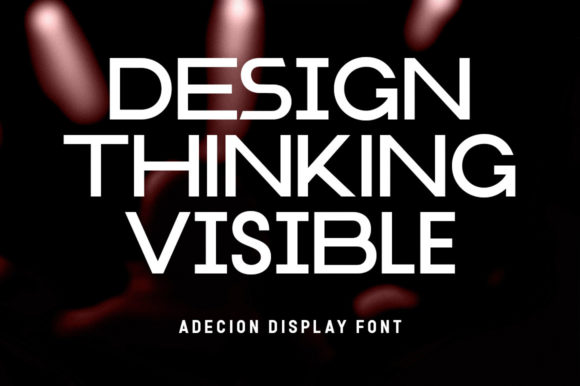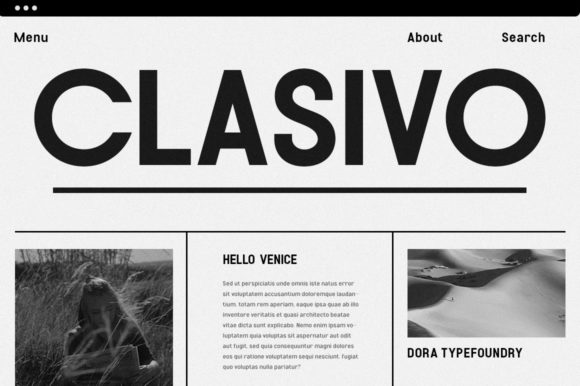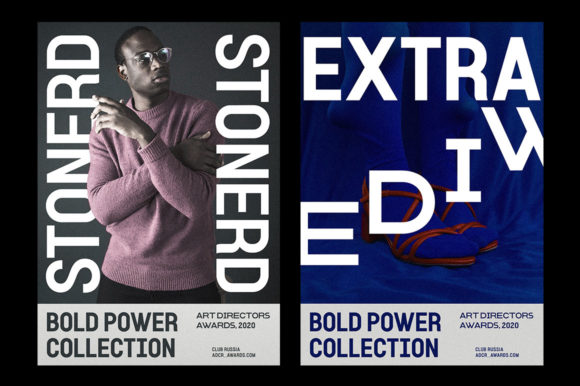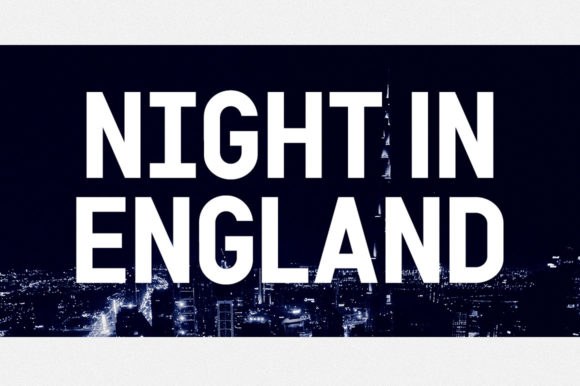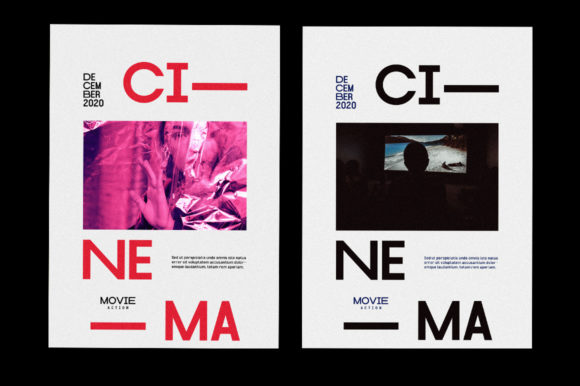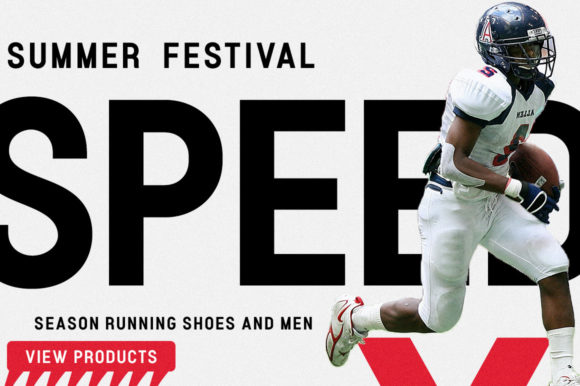
Adecion Font: Elevate Your Designs with a Bold and Simple Display Font
Are you tired of using the same old fonts in your designs? Do you want to make your creative ideas stand out from the crowd? Look no further than Adecion Font, a bold and simple display font that’s perfect for designers and crafters alike. In this article, we’ll take a closer look at Adecion Font, its features, and how it can elevate your designs to the next level.
What is Adecion Font?
Adecion Font is a modern display font that’s designed to make a statement. Its bold and simple design makes it perfect for headlines, titles, and other design elements where you want to grab attention. The font is clean, elegant, and highly legible, making it suitable for a wide range of design projects, from branding and advertising to packaging and digital media.
Key Features of Adecion Font
So, what sets Adecion Font apart from other fonts? Here are some of its key features:
- Bold and Simple Design: Adecion Font has a bold and simple design that’s perfect for making a statement.
- PUA Encoded: Adecion Font is PUA (Private Use Area) encoded, which means you can access all of the glyphs and swashes with ease.
- Highly Legible: The font is highly legible, even at small sizes, making it perfect for a wide range of design projects.
- Clean and Elegant: Adecion Font has a clean and elegant design that’s perfect for designers and crafters who want to create professional-looking designs.
Benefits of Using Adecion Font
So, why should you use Adecion Font in your designs? Here are some of the benefits of using this font:
- Make Your Designs Stand Out: Adecion Font is a bold and attention-grabbing font that’s perfect for making your designs stand out from the crowd.
- Easy to Use: The font is PUA encoded, which means you can access all of the glyphs and swashes with ease, making it easy to use in your designs.
- Versatile: Adecion Font is a versatile font that can be used in a wide range of design projects, from branding and advertising to packaging and digital media.
- Professional-Looking Designs: Adecion Font has a clean and elegant design that’s perfect for creating professional-looking designs that will impress your clients or audience.
How to Use Adecion Font in Your Designs
Using Adecion Font in your designs is easy. Here are some tips to get you started:
- Use it as a Headline Font: Adecion Font is perfect for use as a headline font, where you want to grab attention and make a statement.
- Pair it with Other Fonts: Adecion Font can be paired with other fonts to create a unique and interesting design.
- Experiment with Different Sizes: Adecion Font is highly legible, even at small sizes, so don’t be afraid to experiment with different sizes to create visual interest.
- Use it in Digital Media: Adecion Font is perfect for use in digital media, such as social media graphics, videos, and websites.
In conclusion, Adecion Font is a bold and simple display font that’s perfect for designers and crafters who want to make their designs stand out. With its PUA encoded feature, highly legible design, and clean and elegant style, Adecion Font is a versatile font that can be used in a wide range of design projects. Whether you’re looking to create professional-looking designs or just want to add some visual interest to your projects, Adecion Font is a great choice.